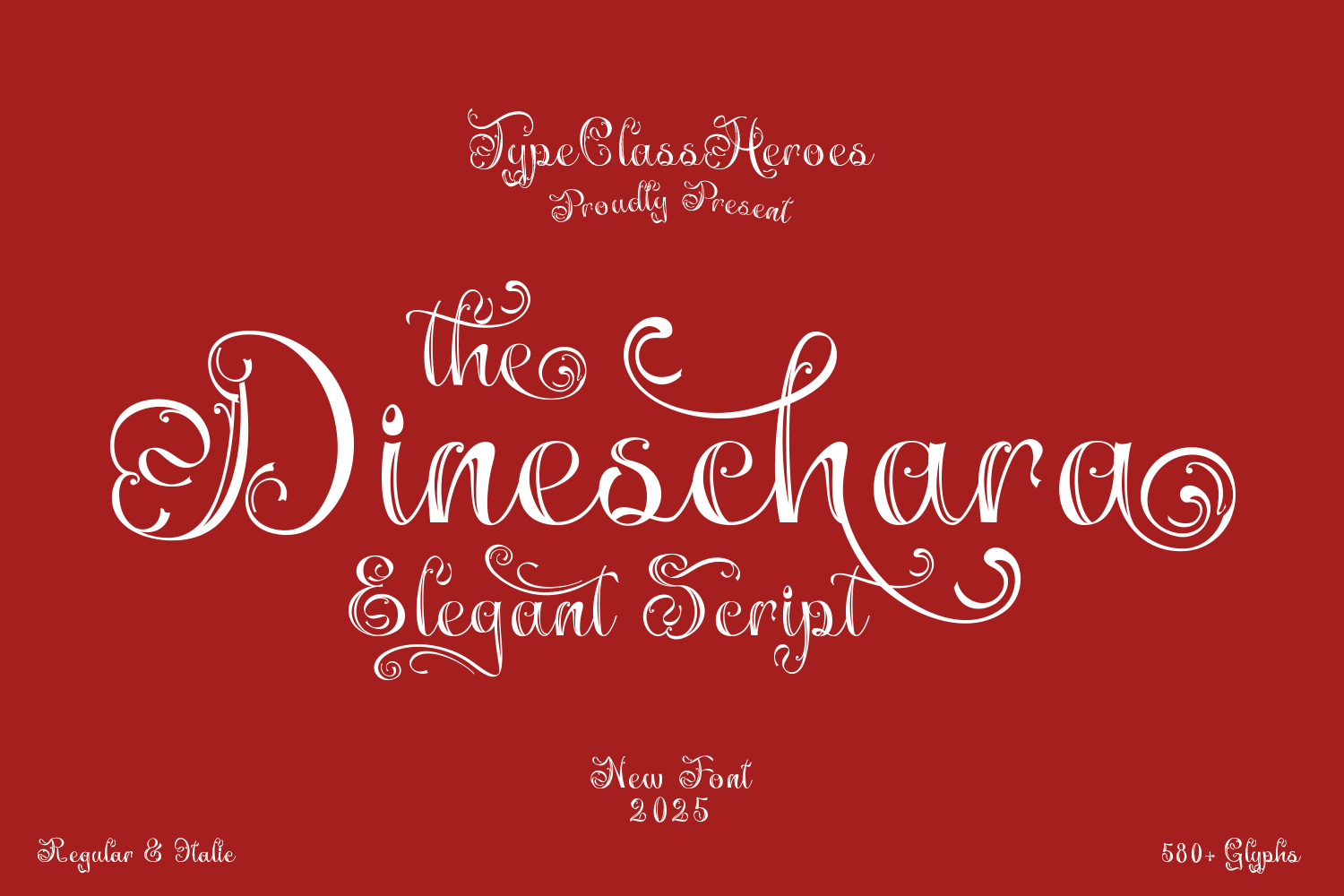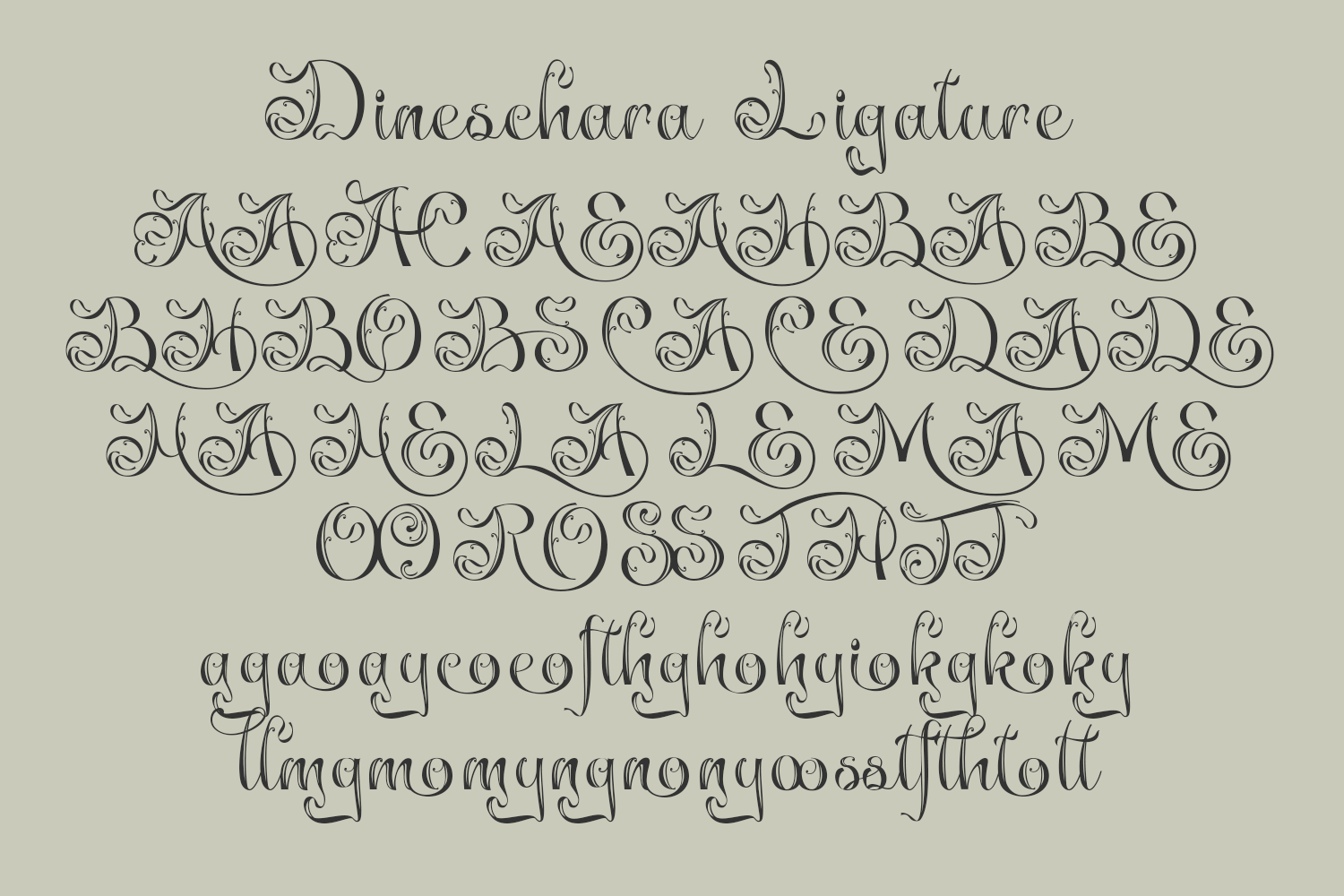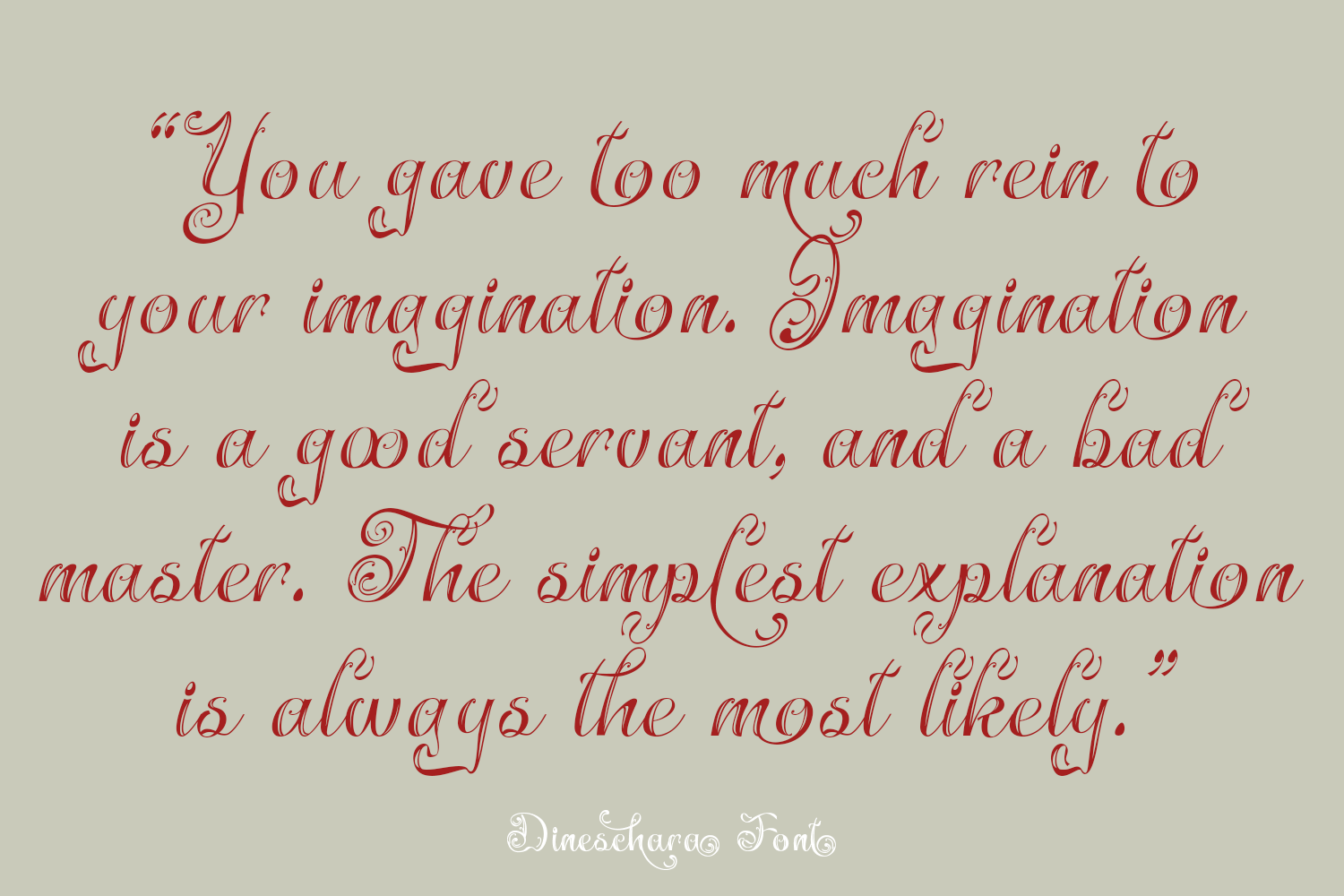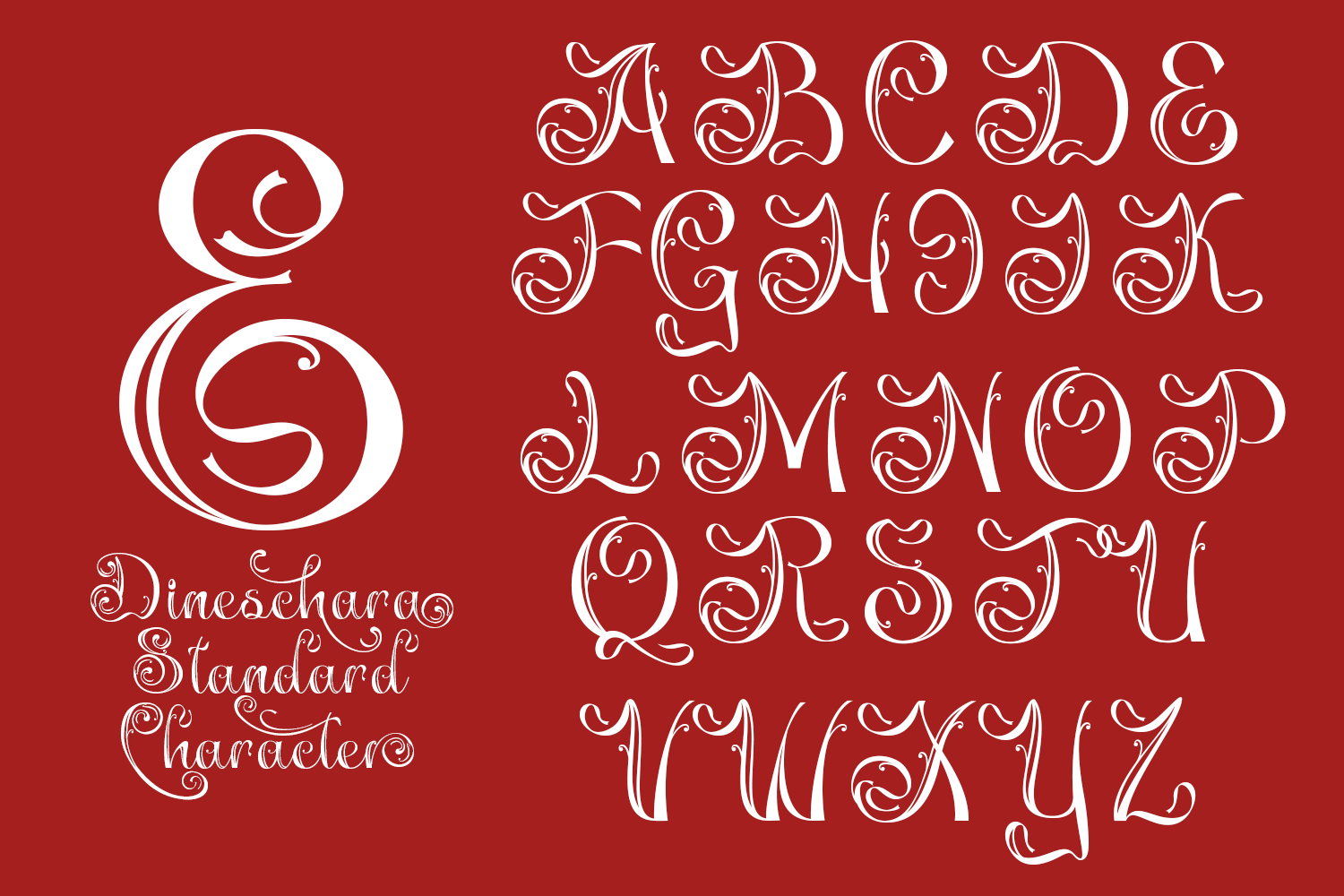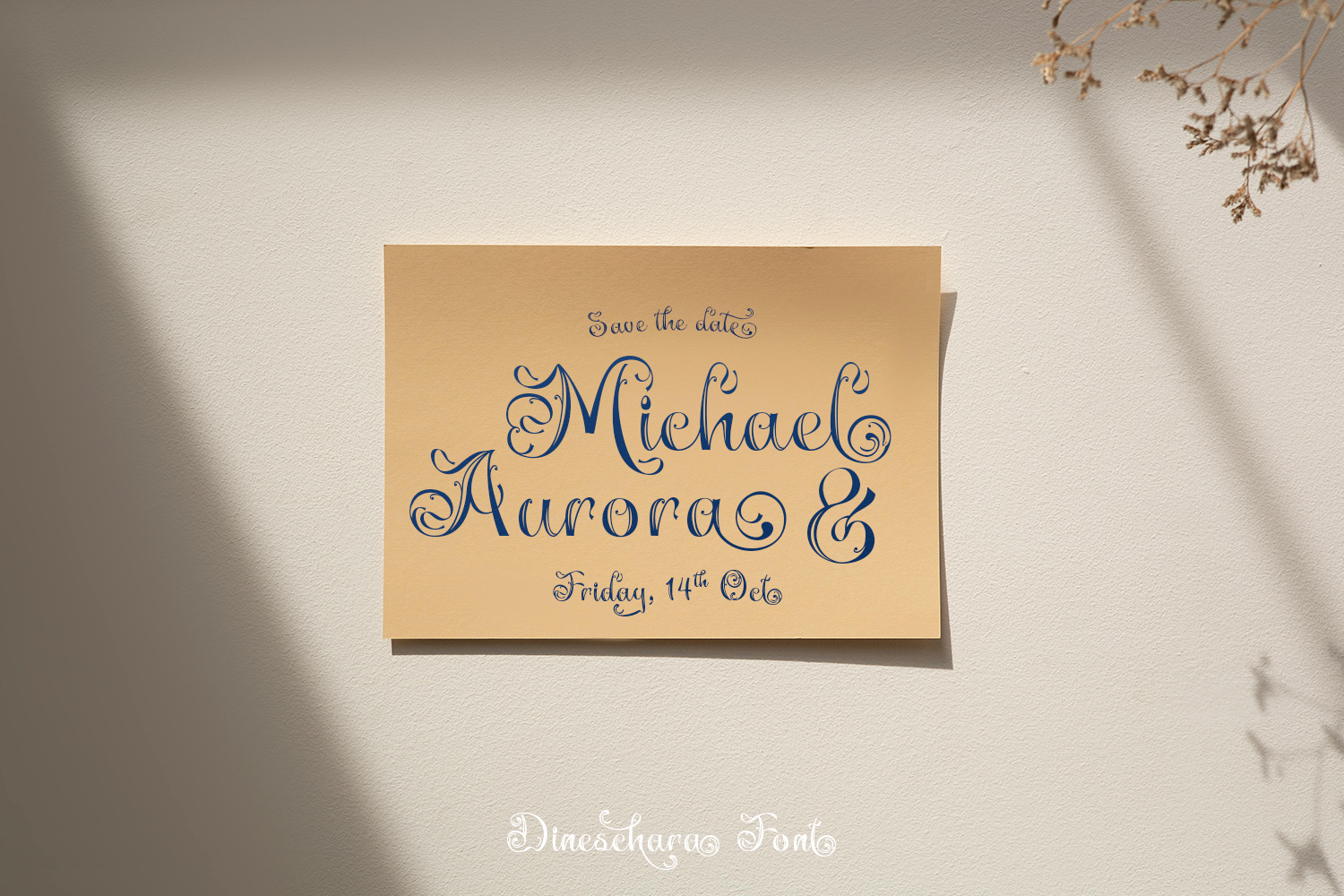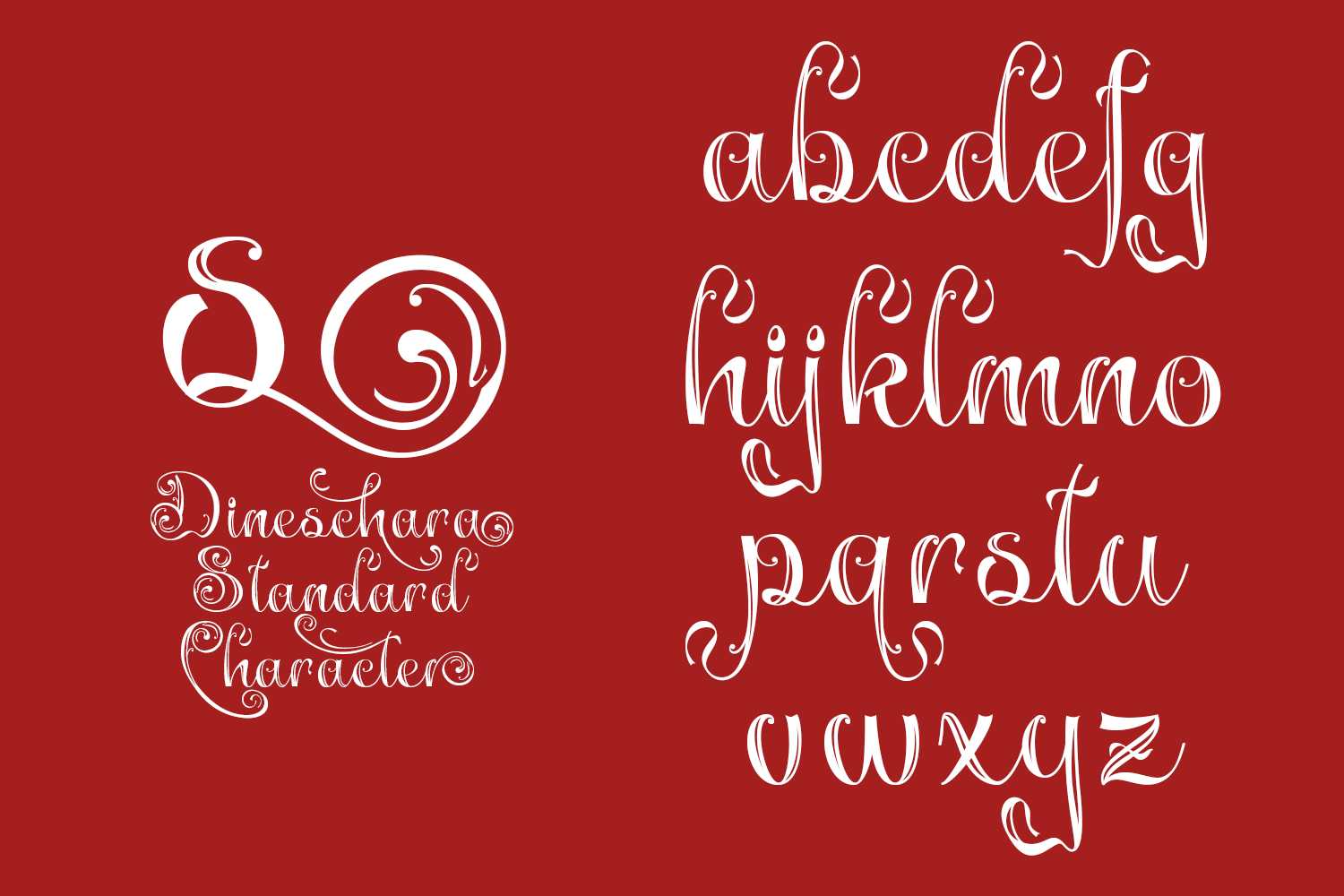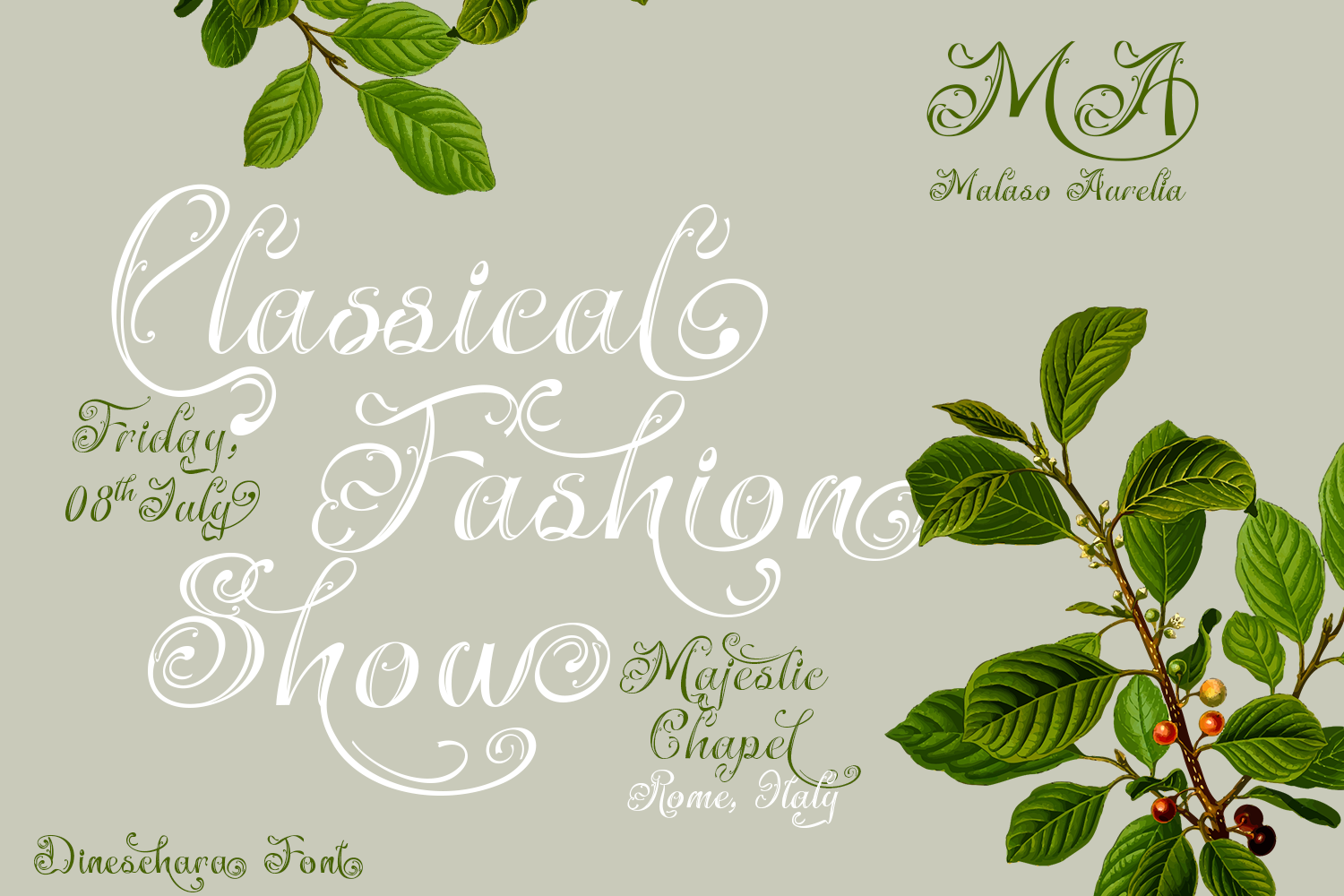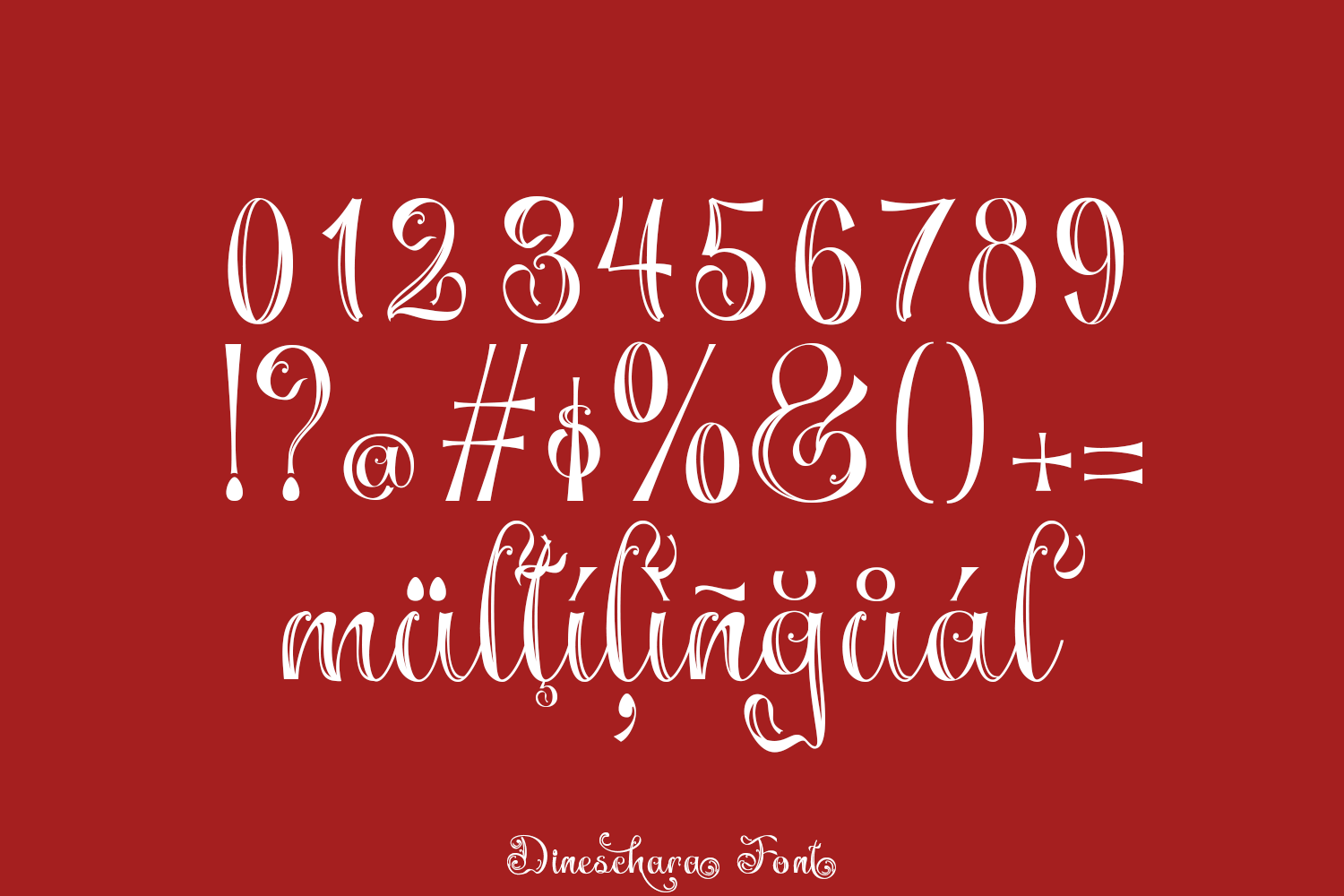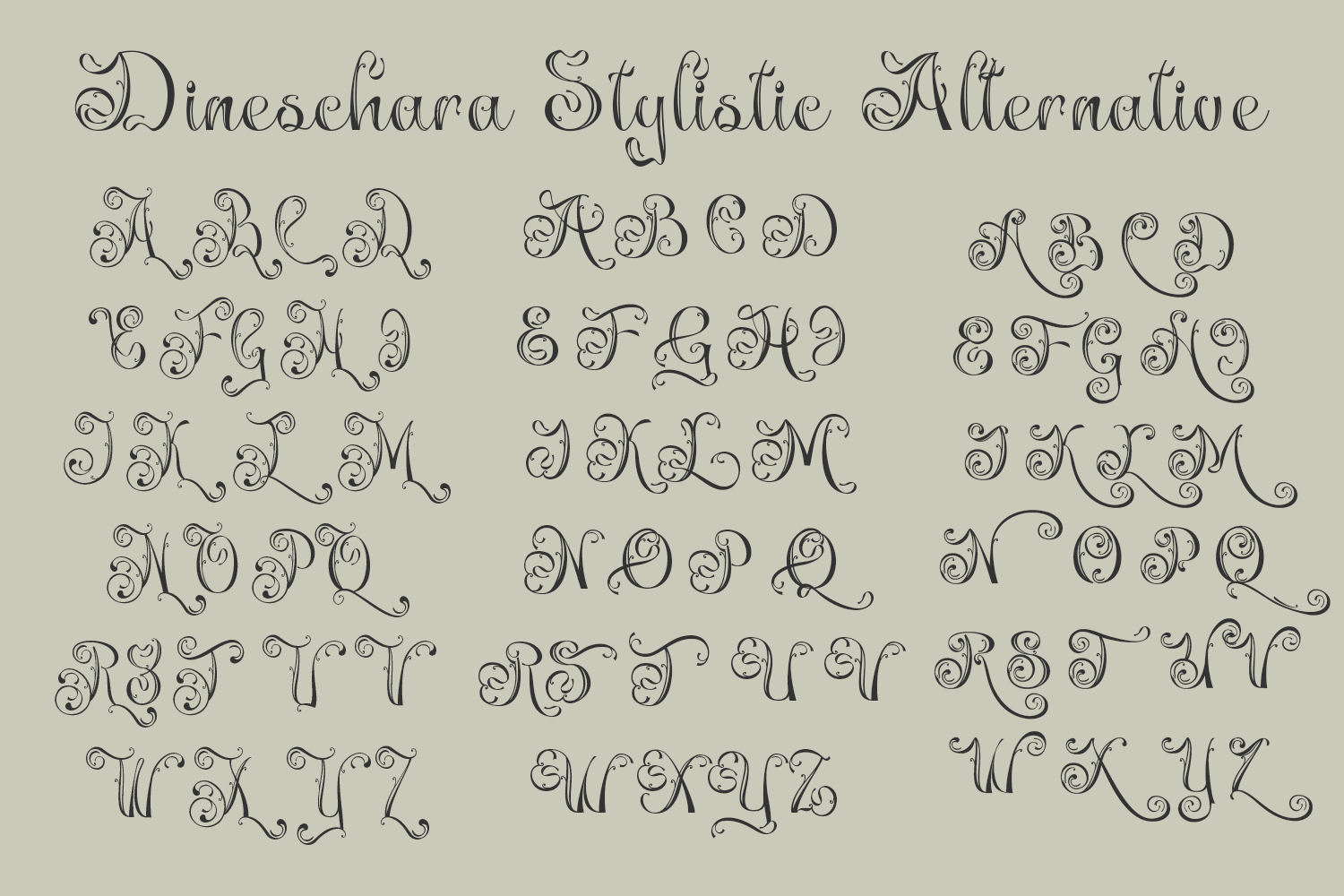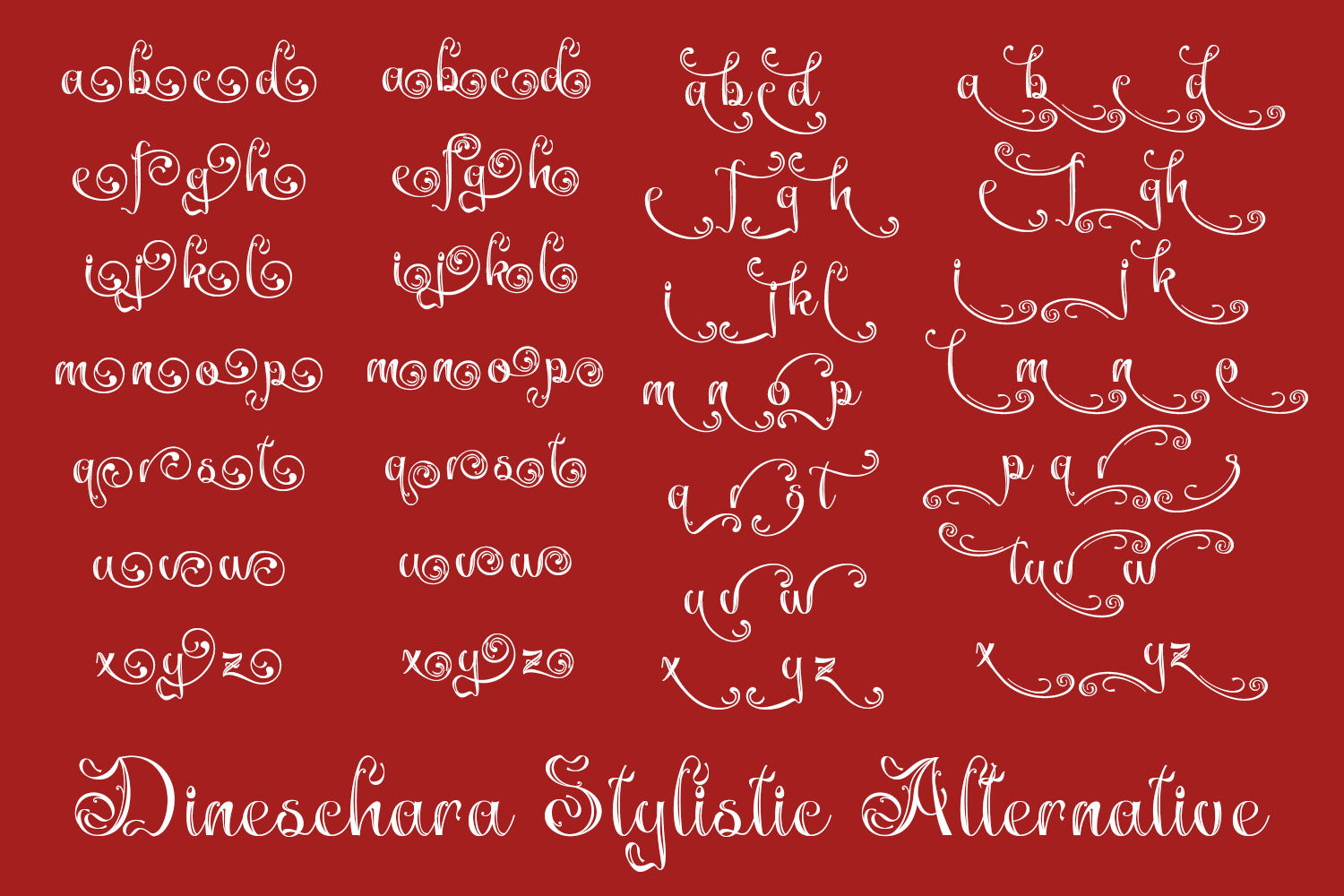
Dineschara is a script with elegant curves, gorgeous and modern feels. Carefully creating every glyph, designing beautiful simple words with this font. The letterforms are highly stylized with ornate swashes; thick and thin strokes make it ideal for high-end branding, book covers, or high class invitations, particularly for classic or heritage brands.
• Uppercase & Lowercase
• Number & Symbol
• International Glyphs
• Alternative
• Ligature